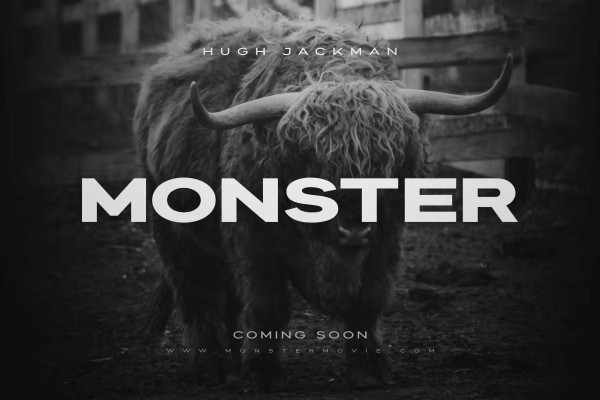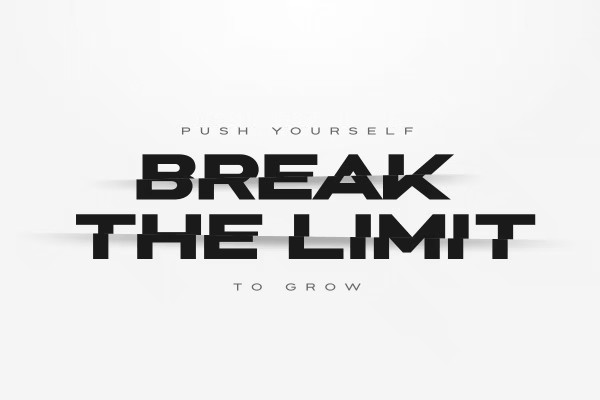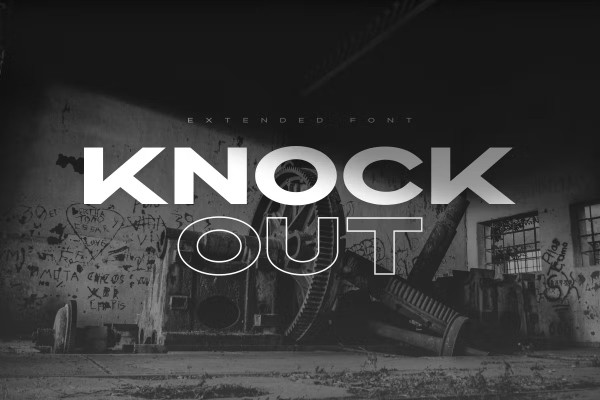
Knockout Font
Knockout Font is a sophisticated extended geometric font inspired by popular Sans Serif fonts, with a few tweaks to make it more modern, bold, unique, and stylish.